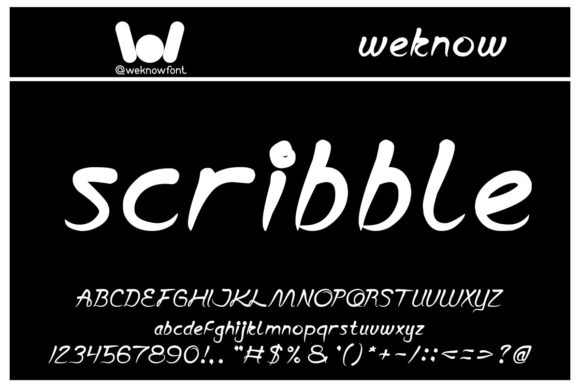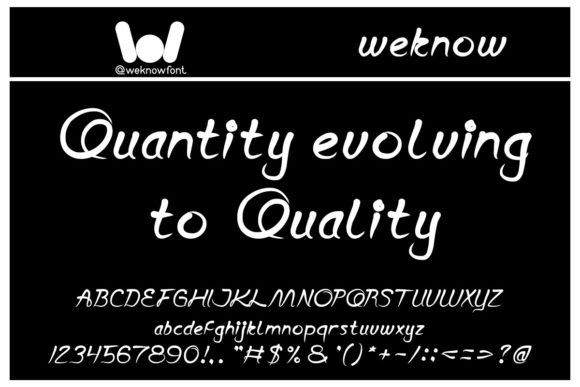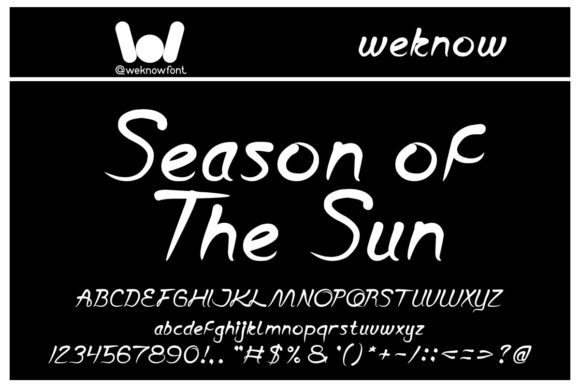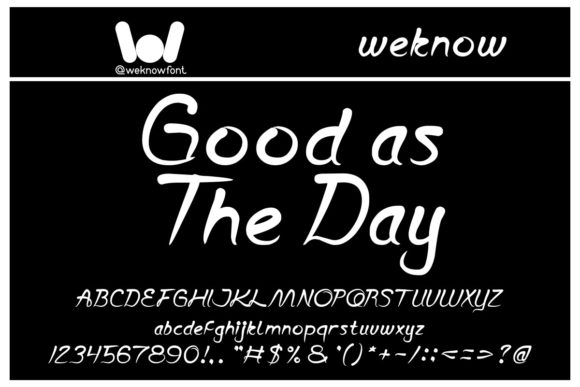
Script Thing Font
About Script Thing Font
Script Thing is a cute and adaptable handwritten font. It is suitable for headline font, in corporate identity, brand identity, apparel industry, poster, music, movie, game, magazine, book, comic, cartoon, YouTube, Instagram, website, or any of your creative design projects.